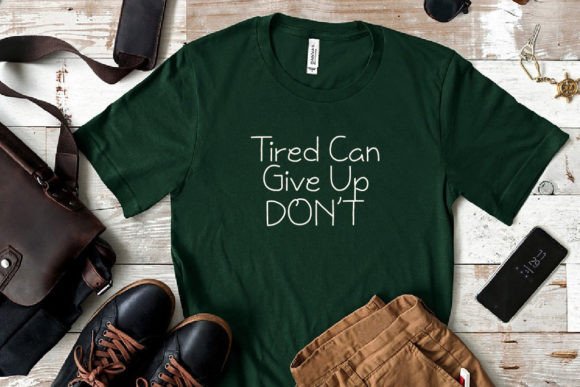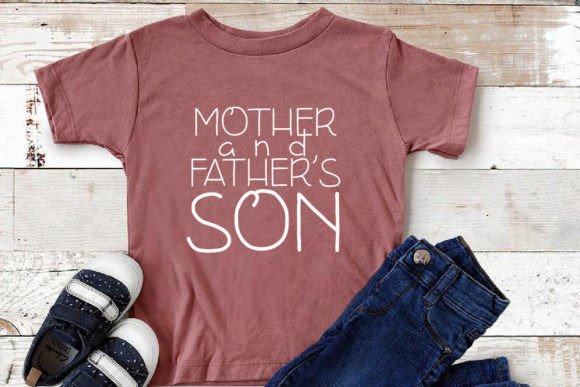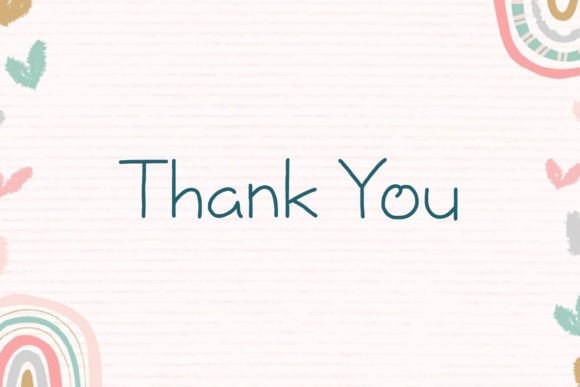
Introduction to Picko Chicken Font
Have you ever been stuck on a creative project, desperately searching for the perfect font to bring your idea to life? That was me, until I stumbled upon the delightful Picko Chicken Font. Its playful handwritten style instantly captured my heart, and I knew I had to share it with fellow designers.
As a valuable design resource, the Picko Chicken Font offers a simple yet cheerful touch, making it perfect for a wide range of creative projects, from invitations and cards to quotes and more. What sets it apart is its high-quality design, available for free download with a transparent background, making it easy to use and customize.
With its charming and approachable vibe, the Picko Chicken Font is a must-have for designers looking to add a personal touch to their work. Whether you’re working on a personal project or a client’s design, this font is sure to bring a smile to your face and inspire your creativity.
Key Features of Picko Chicken Font
- High-Quality Typography: Picko Chicken Font is designed to deliver crisp and clear typography, making it perfect for creative projects that demand attention to detail.
- Large Character Set: This font includes a large character set, covering a wide range of languages and alphabets, making it suitable for global creative projects.
- Resolution-Independent: Picko Chicken Font is designed to be resolution-independent, ensuring that it looks sharp and clear at various resolutions, from low to high.
Honest Review: Picko Chicken Font
I recently stumbled upon the Picko Chicken Font, and I must say it’s a fantastic addition to any creative project. The high-quality design makes it perfect for designers looking for a fun and quirky font.
What works well about this font is its versatility. You can use it for titles, headings, or even body text. The transparent background makes it easy to customize and pair with other design elements.
- ✨ Highly customizable: The font comes with a variety of styles and weights, making it easy to adapt to different design needs.
- ✨ High-quality design: The font is well-designed and looks great on both digital and print materials.
However, I do have a few limitations to mention. ⚠️ The font may not be suitable for formal or professional projects, as it has a playful and quirky tone. Additionally, some users may find the font too busy or overwhelming.
Overall, I’m impressed with the Picko Chicken Font. It’s a great resource for designers looking to add some creativity and personality to their projects. With its high-quality design and versatility, it’s definitely worth checking out.
Picko Chicken Font is perfect for creative projects, such as branding, advertising, and graphic design. Its unique and playful style makes it ideal for use in social media, blog posts, and other online content.